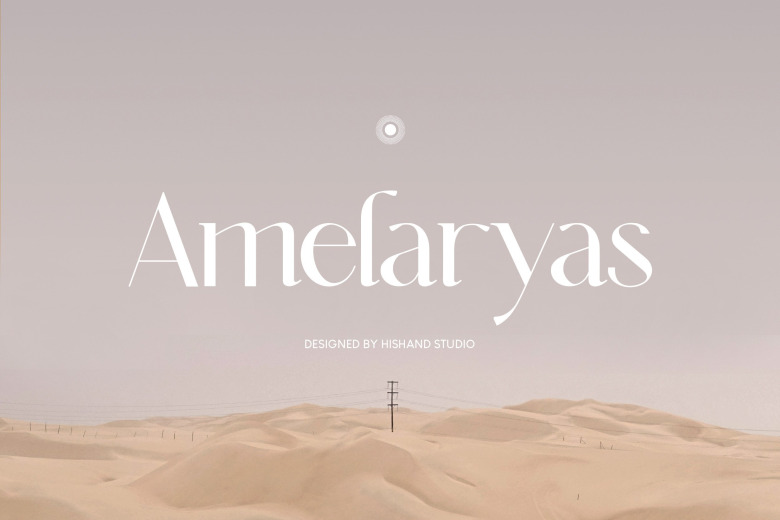
Amelaryas Font
Amelaryas is a sans serif typeface in an elegant & modern style with special alternate ligatures and glyphs. Made from font designer named Hishand studio. It’s a beautiful font with elegant and premium shape that can be used for logos, branding, invitations, stationery, wedding designs, social media posts, and much more.